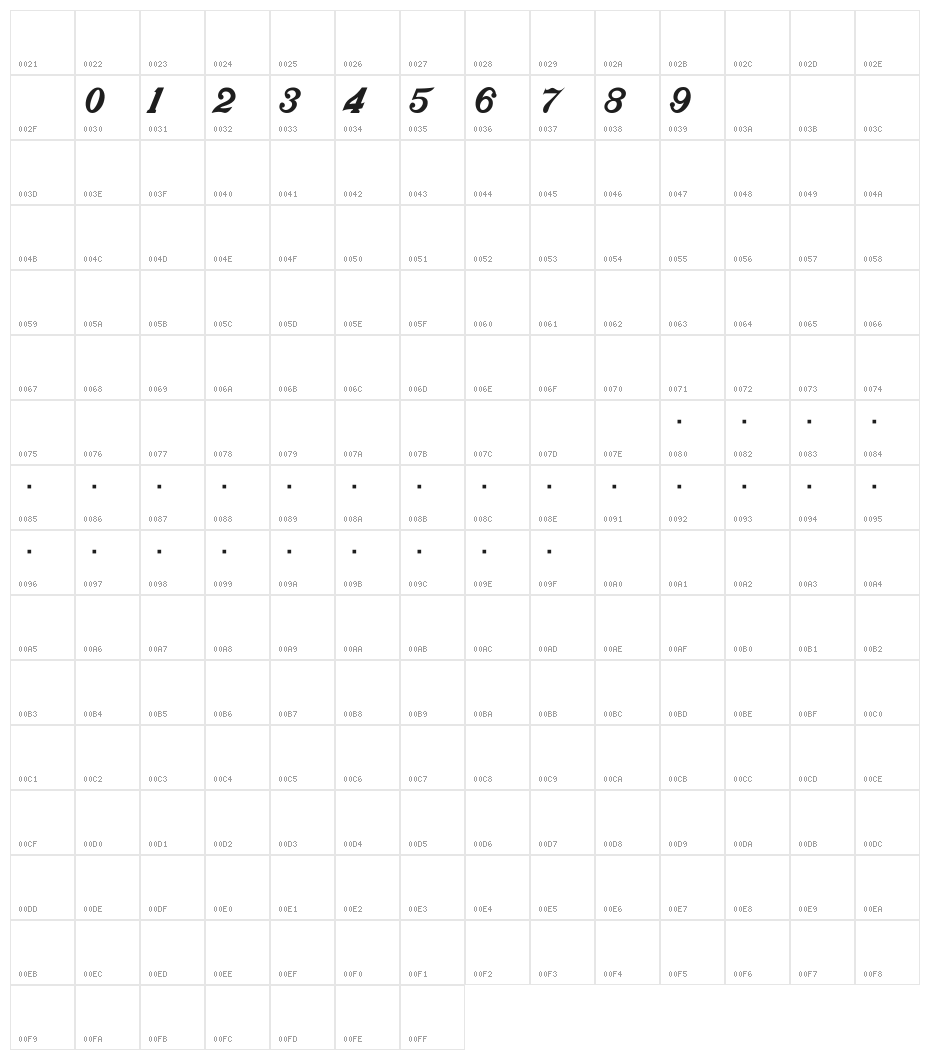
Registration Number ANA I Serif Font
Registration Number ANA I Serif Description
This font features a bold and dynamic style with a strong emphasis on curves and flourishes. Each numeral is crafted with a sense of movement and elegance, making it stand out with its decorative flair. The strokes are thick and consistent, providing a sense of strength and stability. The numbers have a slightly italicized appearance, adding to their dynamic nature. This font is ideal for projects that require a touch of sophistication and boldness, such as branding, signage, or any design that aims to capture attention with its unique style.
| Use Case | Logos, Headlines |
| Proposed Projects | Ideal for branding, signage, and attention-grabbing designs. |